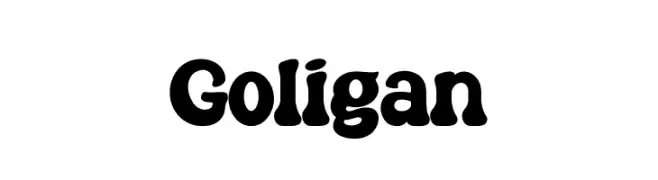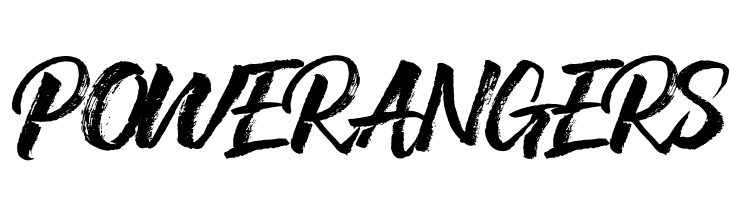
A tall, narrow, and modern font with a sleek, geometric design.
A bold, flowing script font with elegant flourishes and high contrast.
A modern, italic sans-serif font with a sleek and dynamic style.
A bold, geometric font with a modern and futuristic style.
A bold, modern italic font with dynamic curves and a striking slant.
A sleek, geometric font with clean lines and a modern aesthetic.
A playful, casual handwritten font with smooth, rounded edges.
A playful, bold font with rounded, bubbly characters.
A modern, geometric monospaced font with low contrast and uniform spacing.
An elegant and flowing script font with ornate loops and swirls.